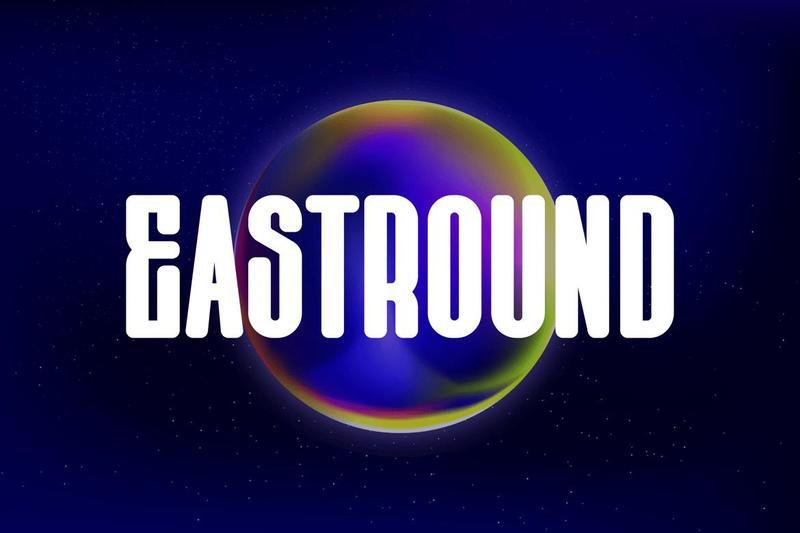
Eastround – Sans Serif Display Typeface HVADVRS
Introducing our new product **Eastround** – Sans Serif Display Typeface
**Eastround** – Sans Serif Display Typeface is a bold and authentic display font. The font is suitable for any branding project like logo, esport, and many more. outstanding in a wide range of contexts.